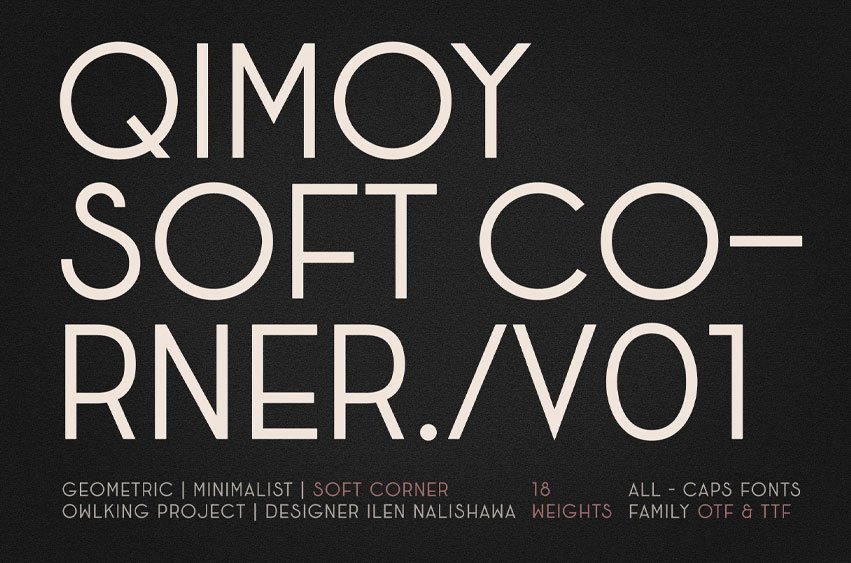
Qimoy Soft Corner Font is a geometric, minimalist all-caps font family designed with a modern touch and subtly rounded edges.
Boasting 18 weights ranging from Thin to Black with matching Italics, this versatile typeface perfectly balances raw structure and organic softness, making it an essential tool for designs.